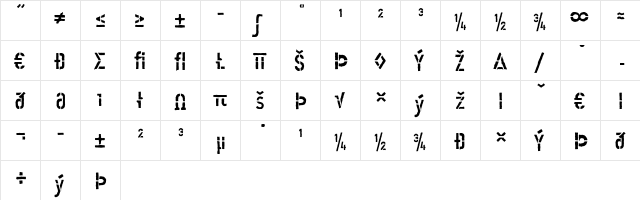
Offline-RoughExpert Medium
Design Context for Offline-RoughExpert Typeface
Offline-RoughExpert trades polish for personality, using distressed and eroded forms to bring grit and attitude to creative work.
Suited to punk-influenced zines, underground music branding, streetwear, and raw, anti-corporate design.
Pro Tip: Pair Offline-RoughExpert with intentionally raw or lo-fi design elements. Fighting against it with overly polished surroundings will undermine its personality.